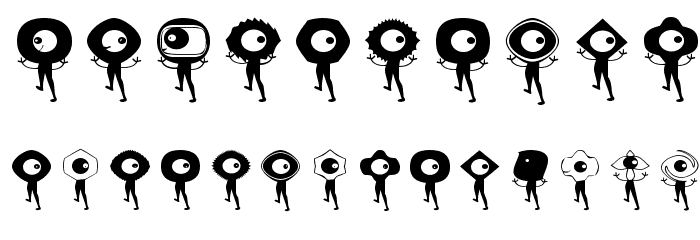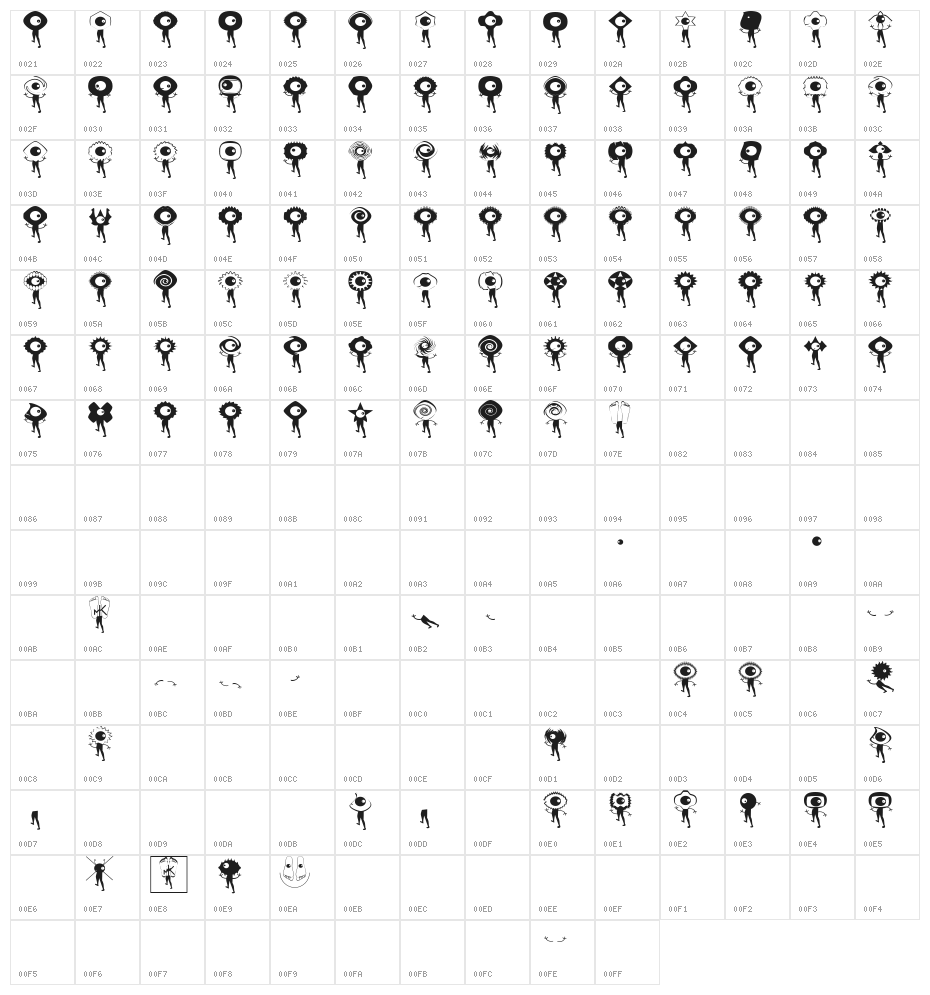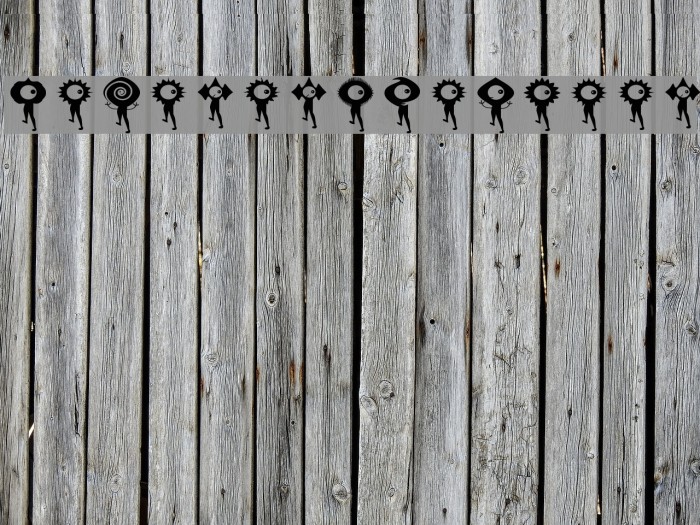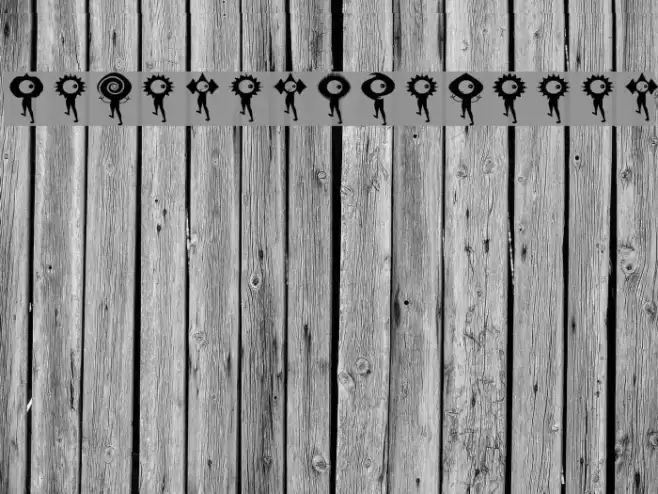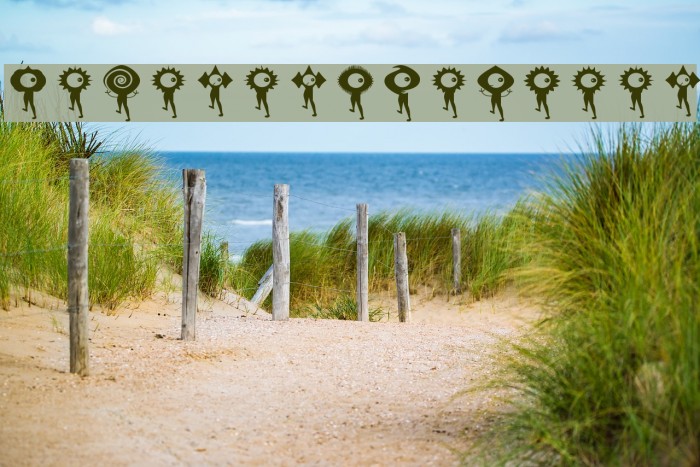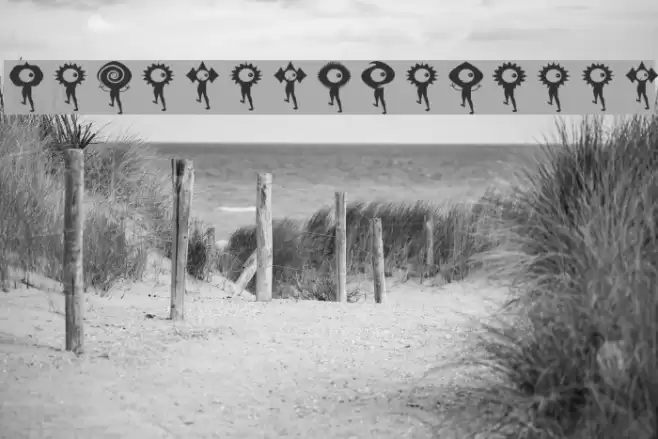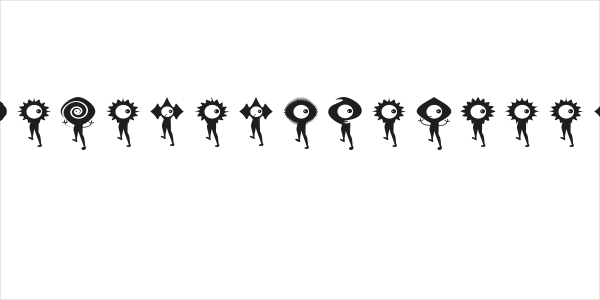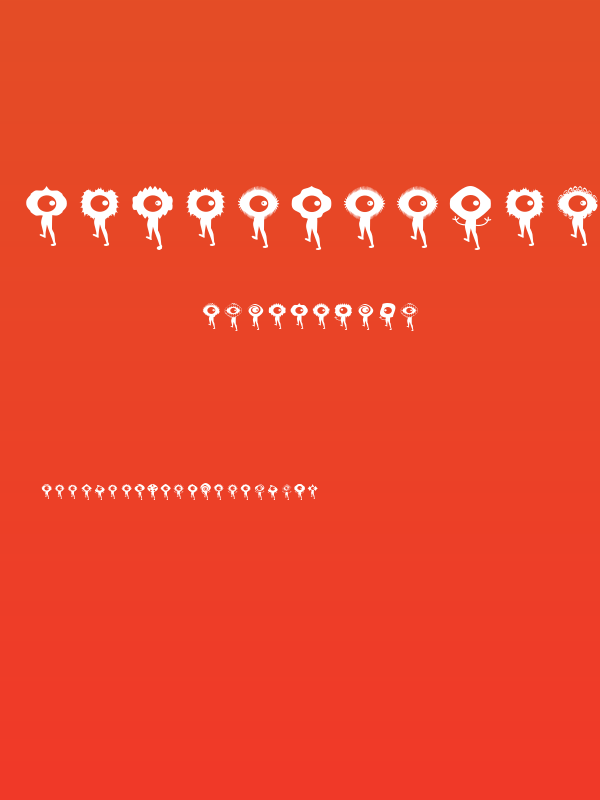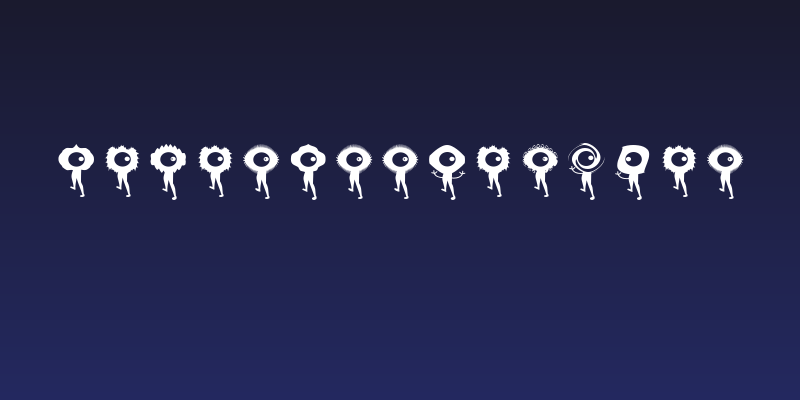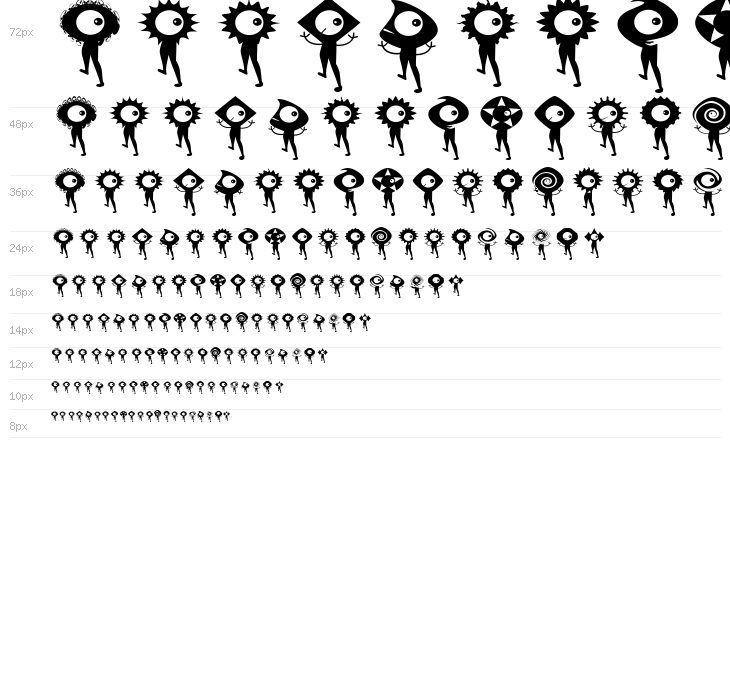
GenesisSketches Font
GenesisSketches Description
A playful, highly decorative display typeface where each character is represented by a whimsical, abstract figure with a single eye and unique head shapes, blending cartoonish and surreal elements. The forms are bold, rounded, and visually striking, with consistent stroke weight and high contrast between black and white.
| Overall Style | Decorative, Playful, Surreal |